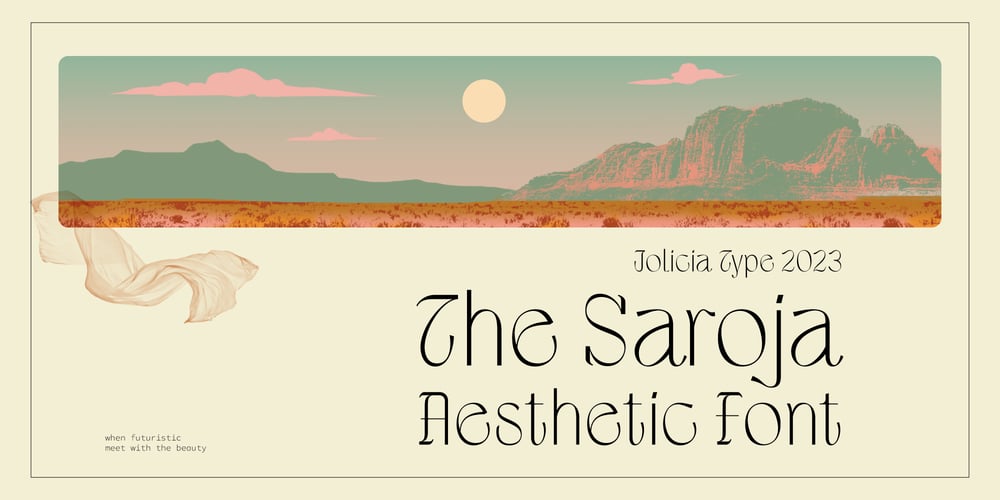
The Saroja Font Family was designed by Laire Banyu, Dyaharum Pungki Revitasari and published by Jolicia Type. The Saroja contains 1 styles and family package options. The Saroja is a meticulously crafted display font type that brings captivating aesthetics to every design project. With distinctive characteristics and various artistic elements, this font breathes new life into your text.With The Saroja you have access to a creative tool that allows you to bring aesthetic beauty to all your design projects. It’s the perfect blend of art and typography, ready to transform every word into a captivating work of art.